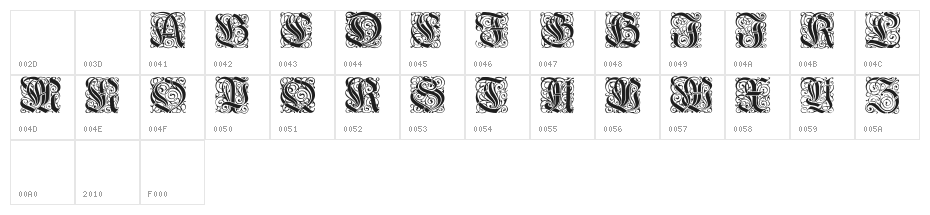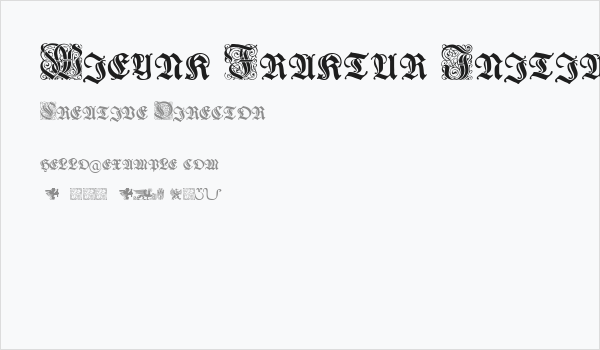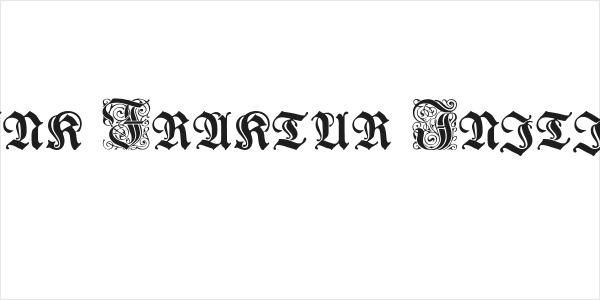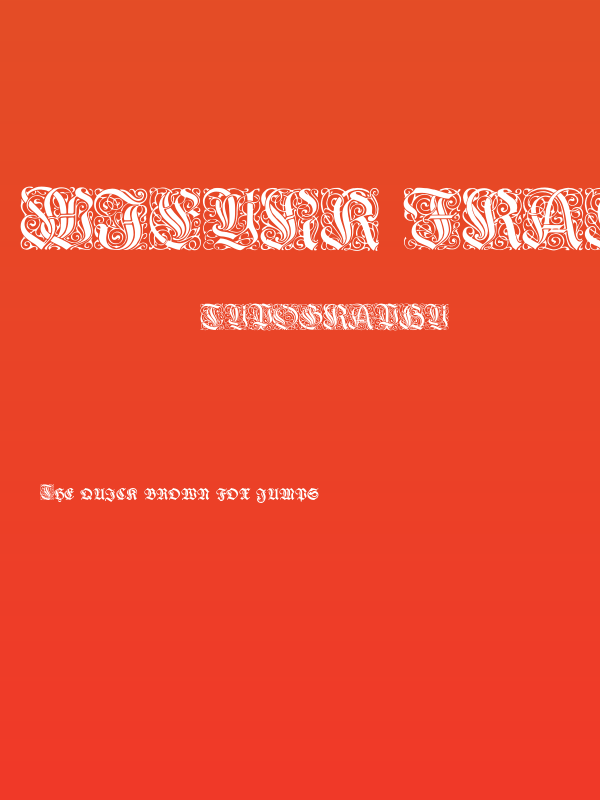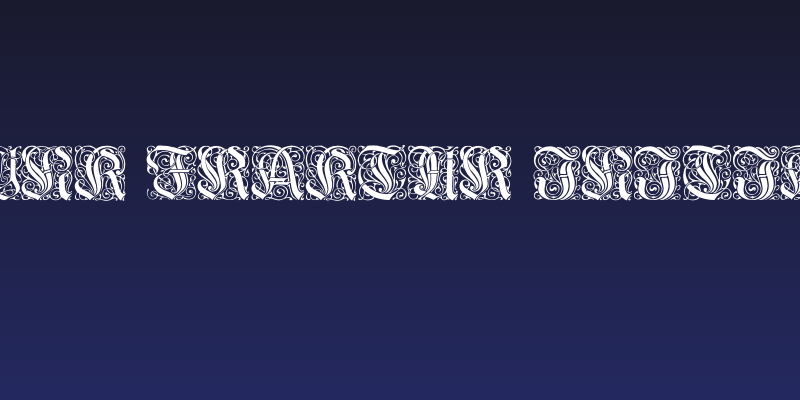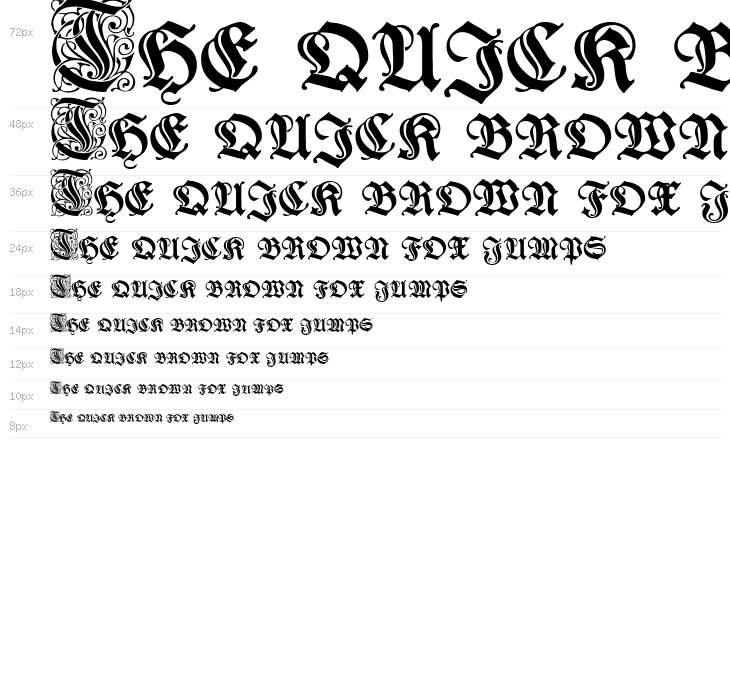
Wieynk Fraktur Initialen Font
Wieynk Fraktur Initialen Description
This font is a decorative and intricate Blackletter style, characterized by its ornate and elaborate design. Each letter is adorned with complex flourishes and embellishments, giving it a highly stylized and artistic appearance. The uppercase letters are particularly detailed, featuring swirling patterns and intricate line work that evoke a sense of historical elegance. This font is reminiscent of medieval manuscripts and traditional Gothic script, making it ideal for projects that require a touch of vintage or classical sophistication. The font's unique style is both bold and eye-catching, ensuring that any text set in this typeface will stand out.
| Proposed Projects | Ideal for historical or medieval-themed designs, book covers, invitations, and decorative signage. |